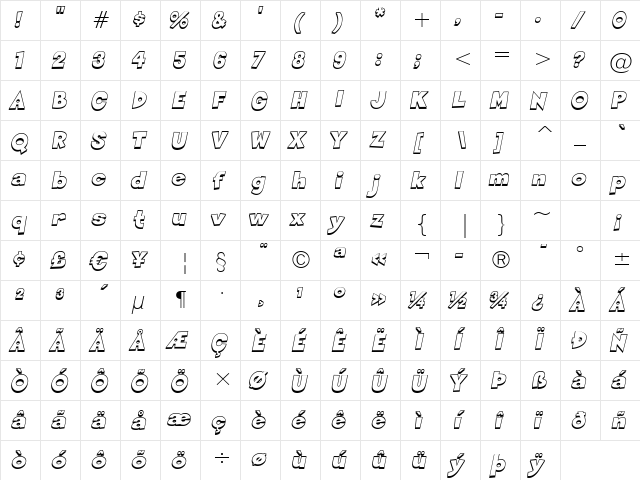
Sneakerhead BTN Shadow Oblique
Design Context for Sneakerhead BTN Shadow Typeface
Sneakerhead BTN Shadow is built around its visual character rather than neutral utility — its distinctive forms are designed to make an impression at display sizes. The dynamic lean of this cut emphasises speed and emphasis in any layout.
Font Pairing: Pair with a clean neutral sans-serif for body copy to let Sneakerhead BTN Shadow's character lead without overwhelming the composition.
Pro Tip: Treat Sneakerhead BTN Shadow as the centrepiece of your typographic hierarchy. One strong heading set in a decorative face can carry an entire layout.